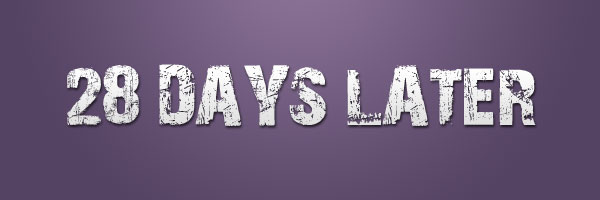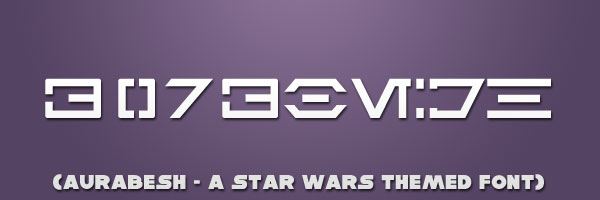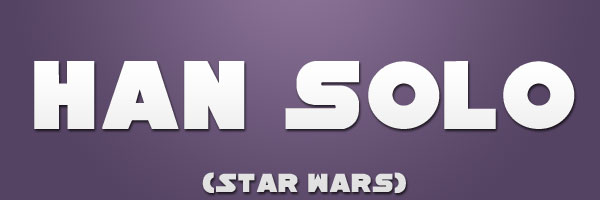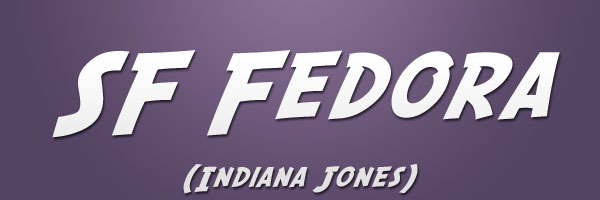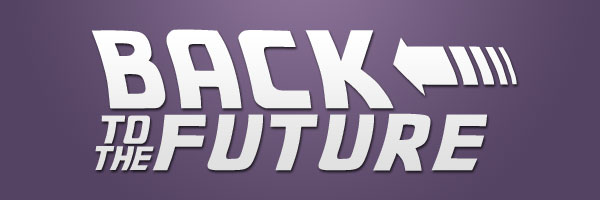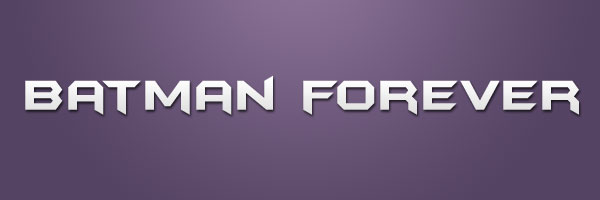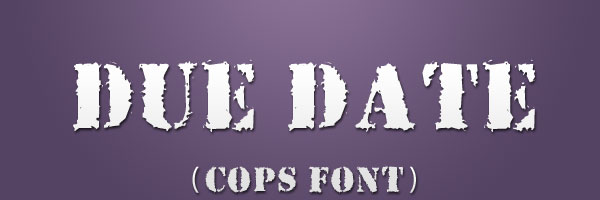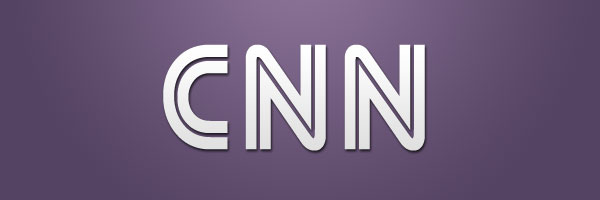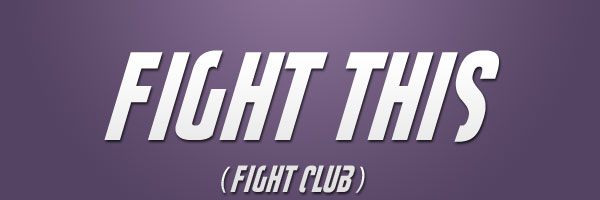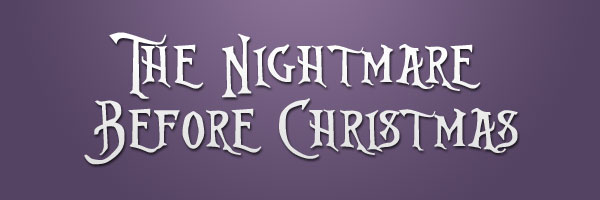
50 Free Movie Themed Fonts You Can Download
Who doesn't like new fonts? I was searching through the net and realized that a lot of people use some really epic looking movie themed fonts in their projects because, well... they are just plain awesome. I have 50 fonts for you all to check out and download this week and experiment with. Try making some title treatments or some logo reveals, these are bound to spark some creativity in you somewhere!
007 GoldenEye
28 Days Later
Wolf's Bane (Wolverine Font)
Squealer (AC DC Font)
Blade Runner Movie Font
Aurabesh (Star Wars Symbols Font)
Han Solo (Star Wars Font)
SF Fedora (Indiana Jones Font)
Back To The Future 2002
Batman Forever
Due Date (COPS Font)
CNN
Fight This (Fight Club Font)
Friday13 (Friday the 13th Font)
Grinched (How the Grinch Stole Christmas Font)
Ringbearer (Lord of the Rings Font)
Elvish Ring NFI (Lord of the Rings - Elvish)
Aniron (Lord of the Rings - Alternative Font)
Matrix
Nightmare Before Christmas
Planet of the Apes
The Ring
Sin City
Trek (Star Trek Font)
Harry P (Harry Potter Font)
Lumos (Harry Potter Book Font)
SF TransRobotics (Transformers Font)
Waltograph (Walt Disney Font)
Final Fantasy
Halo3
Army of Darkness
Blade 2
Beynkales Demo (Corpse Bride Font)
Trajan-Regular (The Movie Font)
Red Right Hand (Hellboy Font)
Homoarakhn (Spiderman and PS3 Font)
Scream Real (Scream Font)
An Unfortunate Event (Lemony Snicket's Font)
Fiddums Family (Addams Family Font)
Battlestar Galactica
Alien League (Alien Font)
Adam Warren 0.2 (300 Font)
AVP (Alien VS Predator Font)
Timepiece (A Clockwork Orange Font)
Metrolox (Enemy of the State Font)
The Godfather
Impossible (Mission: Impossible Font)
InvisibleKiller (Predator Font)
Resident Evil
Terminator Real NFI (Terminator Font)